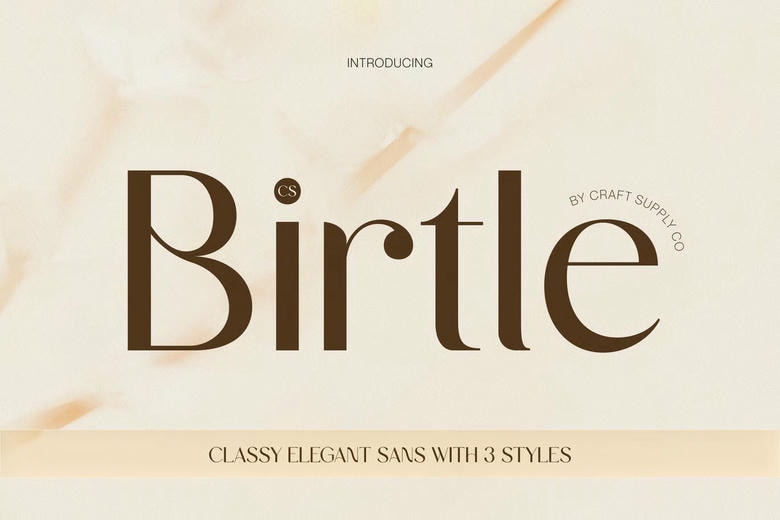
Birtle Font
Birtle is a modern sans-serif font that blends strength with simple elegance. Its clean lines and balanced shapes give it a confident, sophisticated look. The design makes text easy to read and adds a professional touch.
This font adds modern elegance and strong character to your designs. Its clear, stylish letterforms give your work a refined touch. Birtle is a good fit for many high-end projects.
Birtle works well for fashion and beauty branding, visual identities, headlines, luxury packaging, editorials, and modern promotional materials. Its clear, elegant style and strong presence make it a great option for logos, magazine layouts, and ads.
Birtle Sans Serif Font